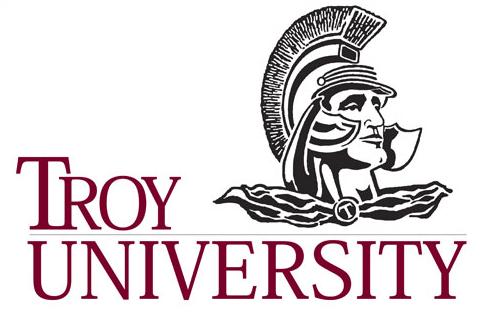
What the font?
I am trying to match up the font below. I can find something similar to to font, but the one below is very straight (up and down). Any ideas?
Times New Roman is pretty close, but has more pointed edges and not quite as vertical; a slight slant on the times font. Maybe I can change it up in PS if needed.